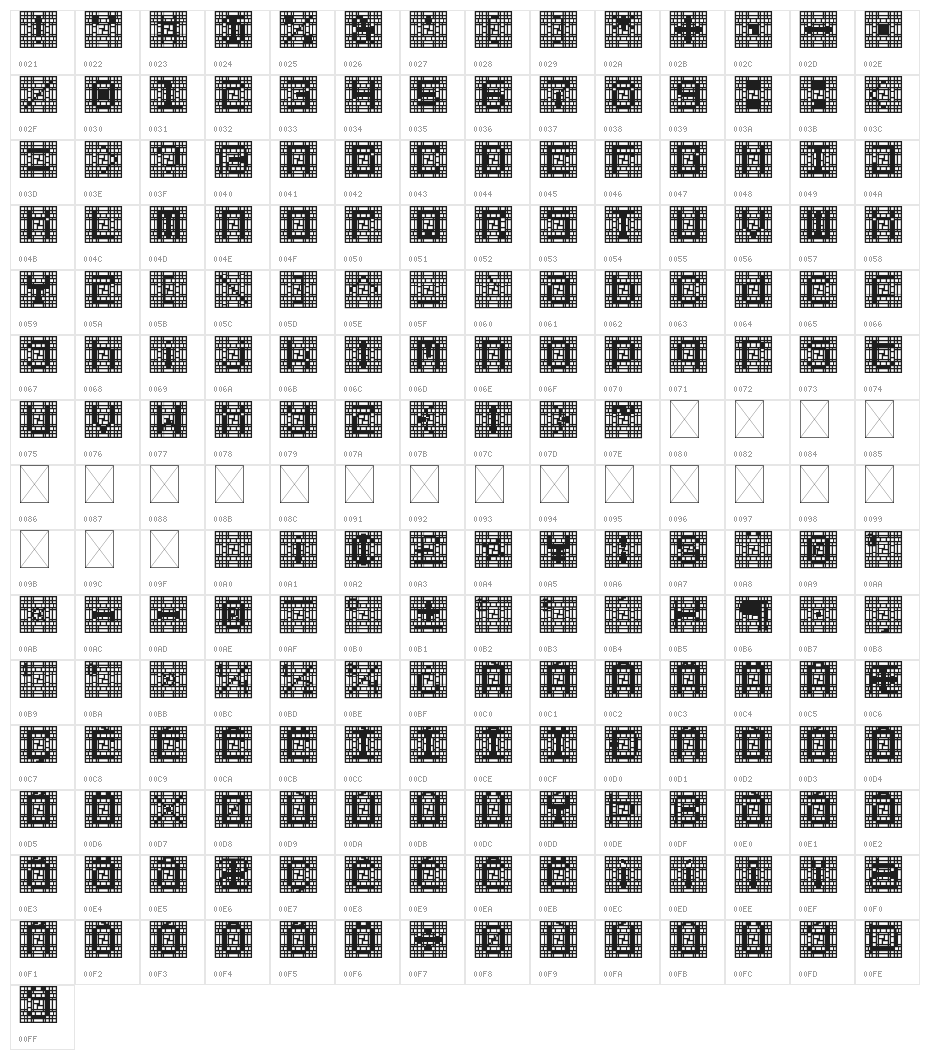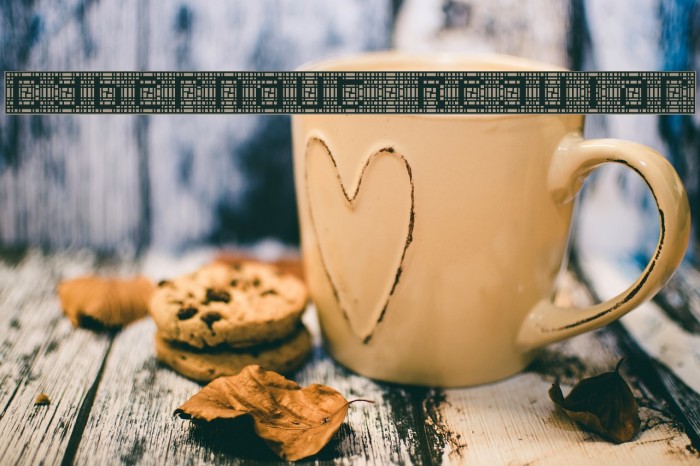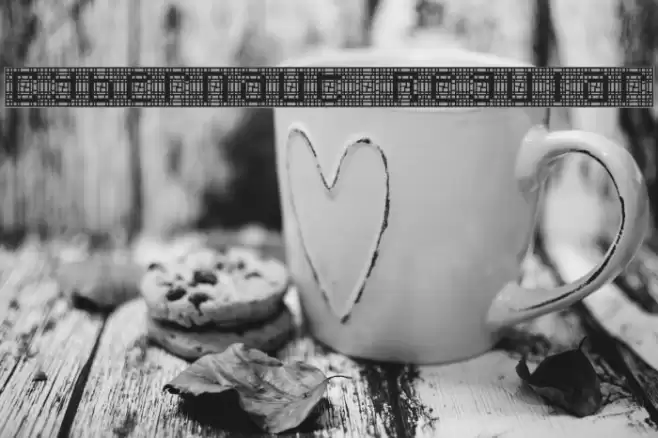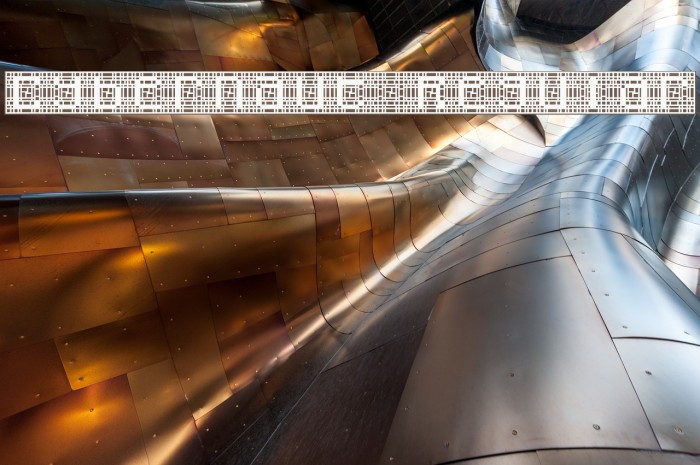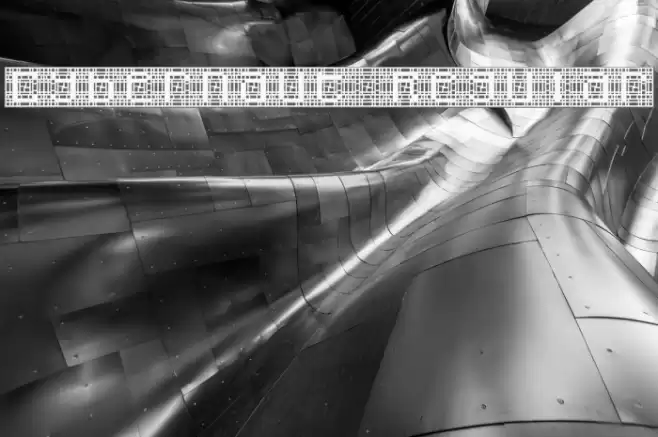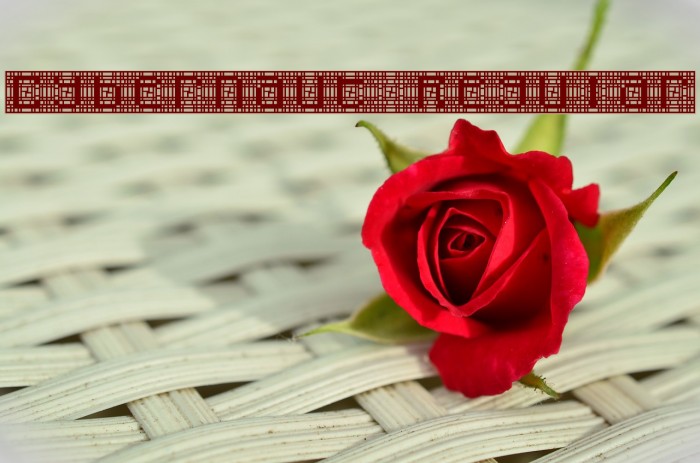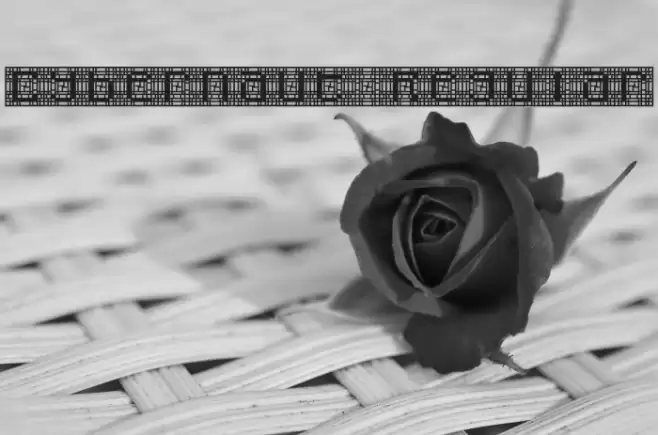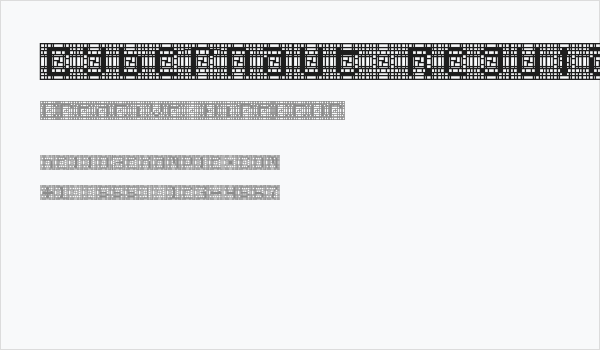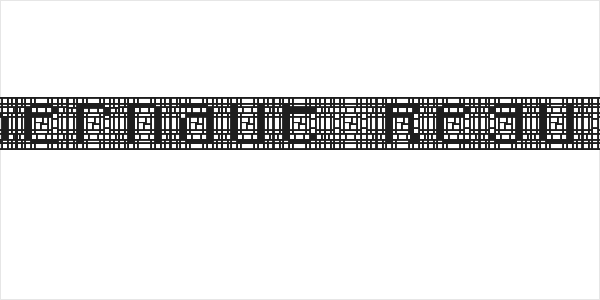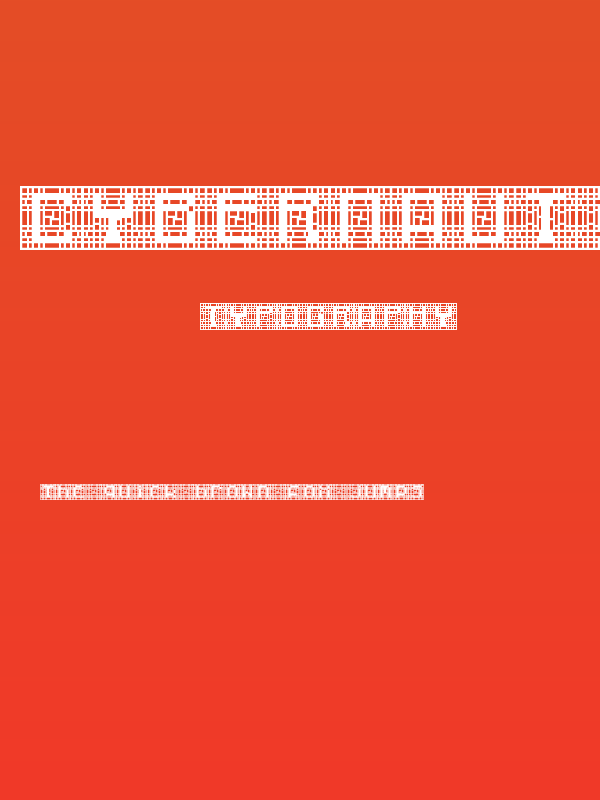
Cybernaut Regular Font
Cybernaut Regular Description
This font features a futuristic and digital aesthetic, characterized by a grid-like pattern that gives it a distinctly technological feel. Each character is composed of a series of interconnected lines and squares, creating a complex, pixelated appearance. The design is highly geometric, with sharp angles and a uniform structure across all characters. This font is ideal for projects that require a modern, tech-savvy look, such as digital interfaces, video game graphics, or sci-fi themed designs. Its intricate design may not be suitable for body text but excels in display settings where its unique style can be appreciated.
| Proposed Projects | Ideal for digital interfaces, video game graphics, sci-fi themed designs, and tech-related branding. |